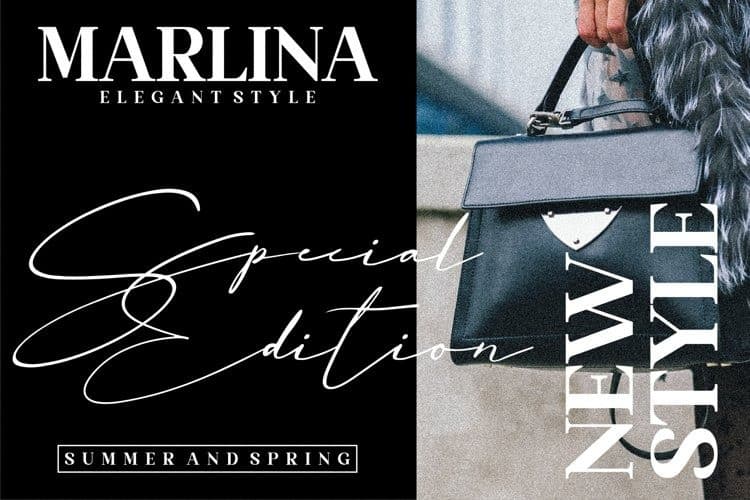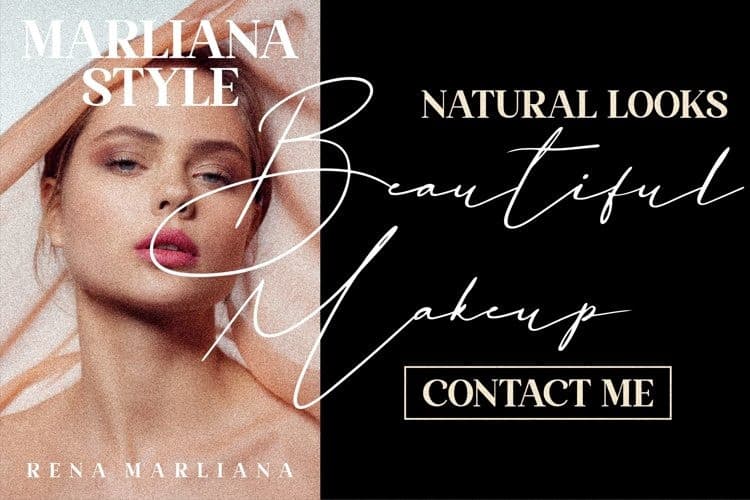
Basstian Script Font, designed by Letterena Studios is a hand drawn signature style typeface, suitable for any projects such as: logos, branding projects, homeware designs, product packaging, mugs, quotes, posters, shopping bags, t-shirts, book covers, name card, invitation cards, greeting cards, label, photography, watermark, special events, and all your other luxury projects that need a script Signature taste.